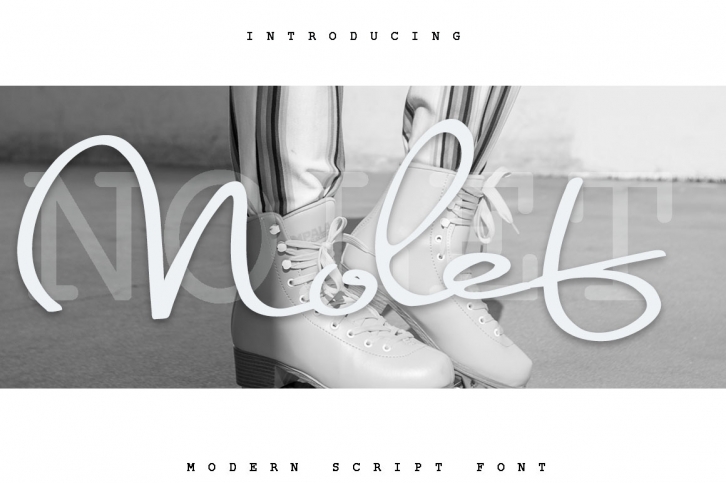
Nolet is a trendy and unique font with an authentic style. It was designed by Makeitrock and it's a great choice for creative people who need such a font. It was released on February 24, 2019 and the file size is 3.40 MB. Nolet will add an organic vibe to any design idea!